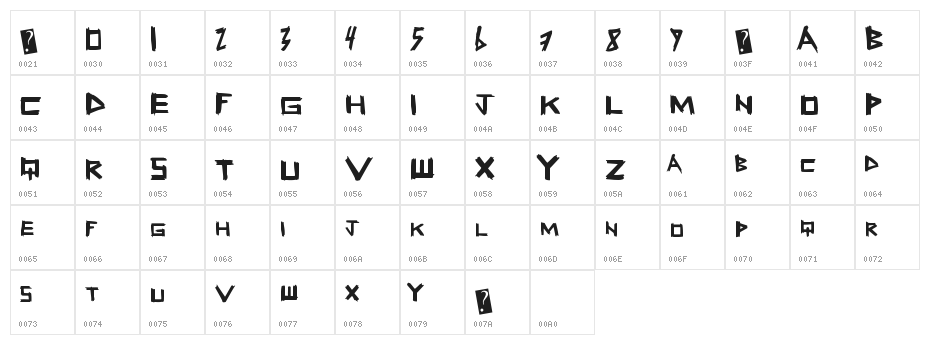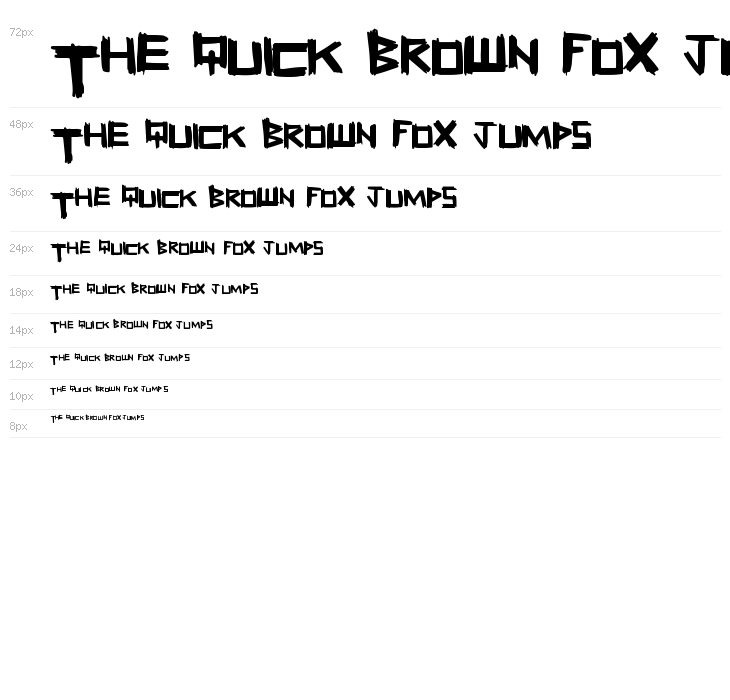
FreshSticks Font
FreshSticks Description
This font features a bold and edgy design with sharp, angular lines that give it a graffiti-like appearance. The characters are dynamic and energetic, with a slightly irregular form that adds to the urban, street-art vibe. The uppercase and lowercase letters maintain a consistent style, with exaggerated strokes and a sense of movement. Numbers and special characters follow the same aesthetic, making the font suitable for attention-grabbing designs. The overall look is modern and rebellious, perfect for projects that require a bold statement.
| Overall Style | Modern, Urban, Edgy |
| Proposed Projects | Ideal for streetwear branding, music album covers, urban-themed posters, and edgy graphic designs. |